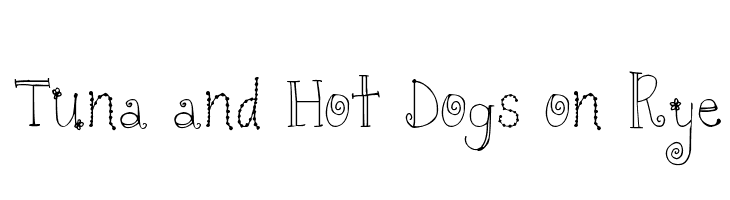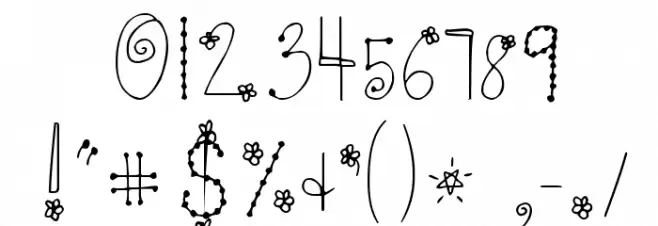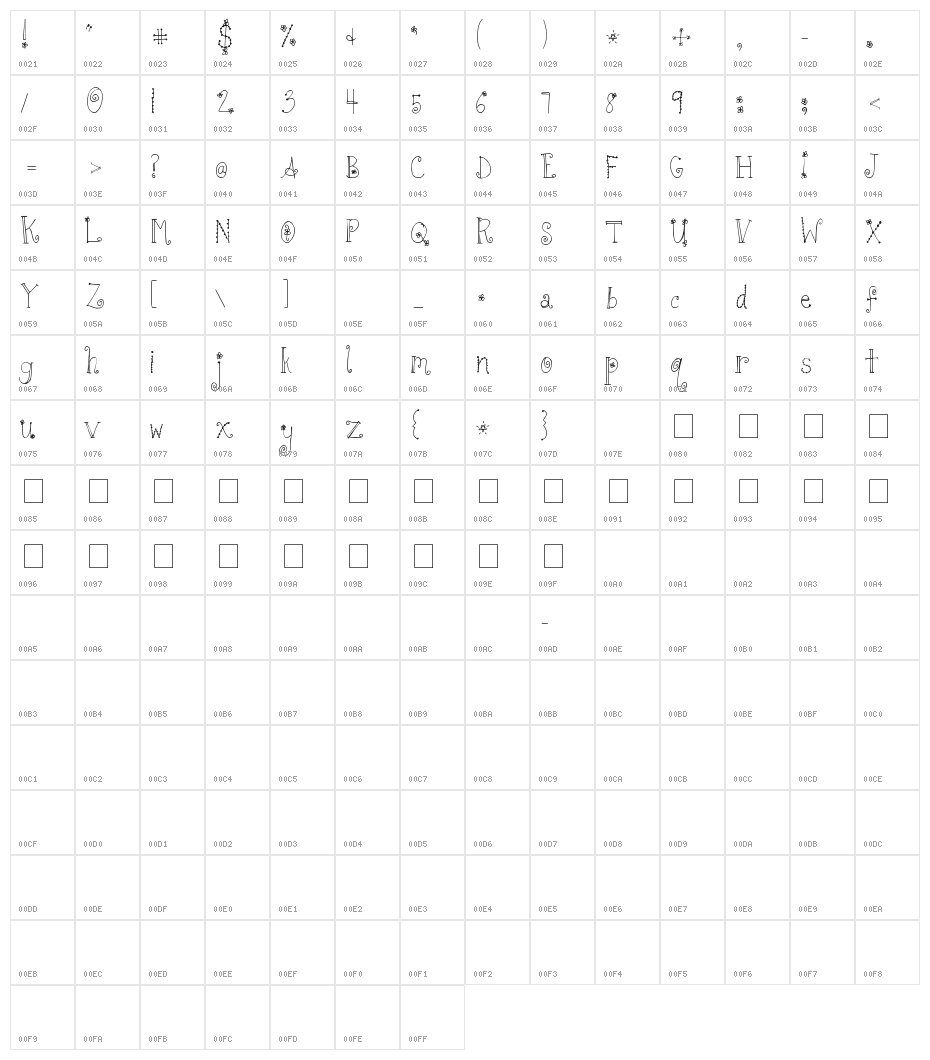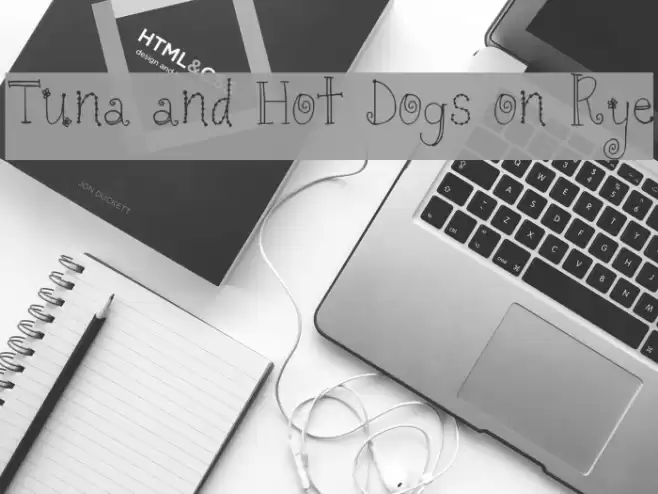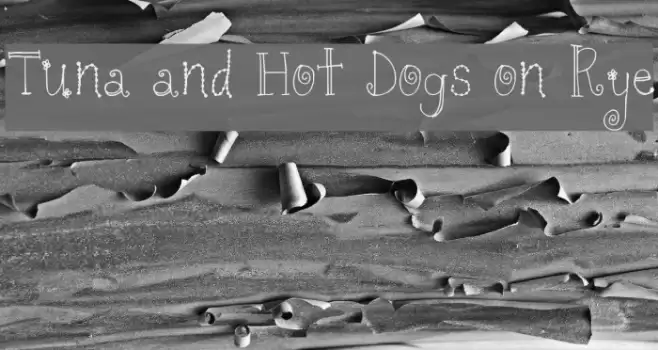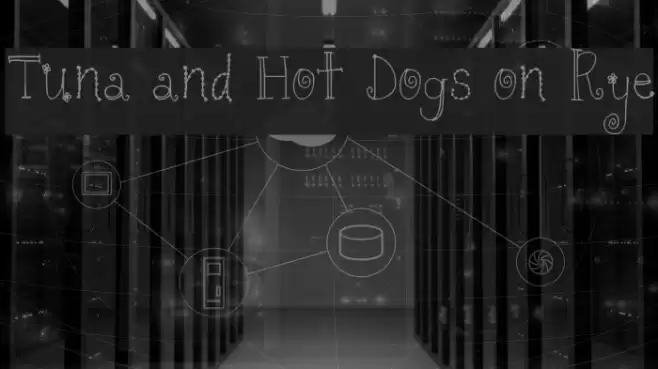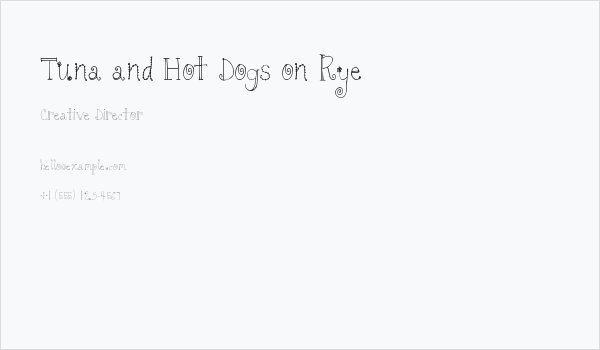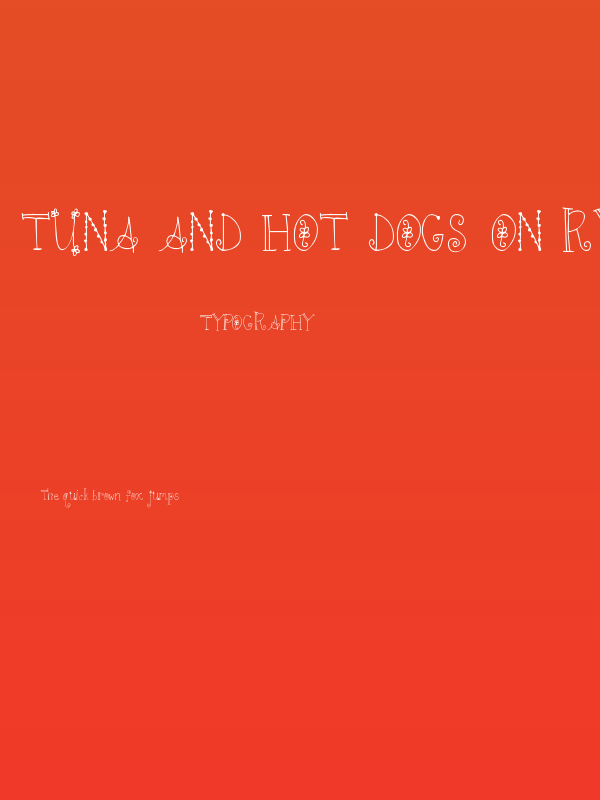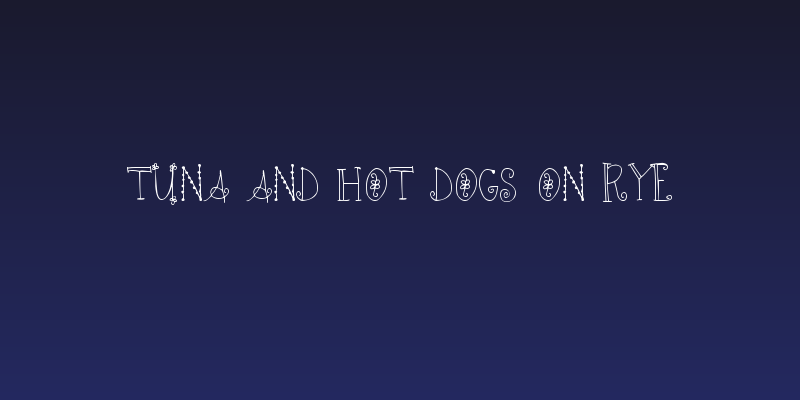
Tuna and Hot Dogs on Rye Font
Tuna and Hot Dogs on Rye Description
This whimsical and playful font features a unique design with floral and spiral embellishments on each character, giving it a lively and decorative appearance. The uppercase and lowercase letters are crafted with a mix of straight and curved lines, often incorporating small flower motifs or dots that add to its charm. The numbers and special characters follow the same playful theme, making it ideal for creative and fun projects. The font's overall style is light-hearted and artistic, perfect for adding a touch of whimsy to any design.
| Proposed Projects | Ideal for children's books, greeting cards, playful branding, and creative invitations. |